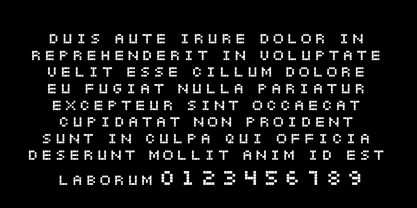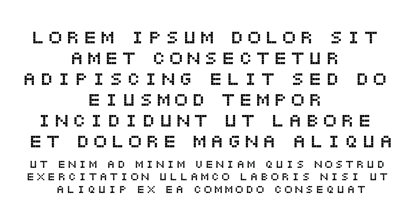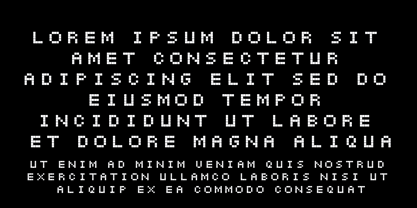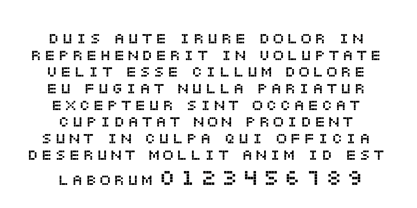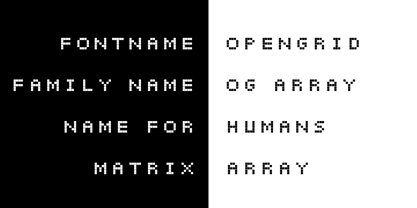
OG Array
by OpenGrid
The OG Array Font Family was designed by Kaihong Gao and published by OpenGrid. OG Array contains 1 styles. More about this family
OpenGrid Array is a bold, modular display typeface built from a strict grid of rectangular “tiles.” Each letter is constructed like a compact block pattern, so words feel like graphic symbols, icons, or badges rather than traditional text. The result is a typeface that looks engineered, digital, and architectural all at once. This font is designed for big, loud applications: logos, wordmarks, monograms, titles, posters, apparel graphics, album covers, gaming and tech branding, Web3 projects, and social media visuals. Use it where you want typography to behave like a logo system—strong, minimal, and instantly recognizable. Tight tracking creates solid, brick-like blocks of text, while wider spacing reveals the underlying grid and “array” structure. OpenGrid Array is an all-caps design with A–Z and numerals, focused on short words and strong statements rather than long reading text. It pairs well with a clean grotesk or neo-grotesk sans serif for body copy, or with a very simple geometric sans when you want the logo to take center stage. If you need a display font that feels like pixels, circuitry, and building blocks fused together, OpenGrid Array is a compact visual toolkit for modern, experimental branding.
OpenGrid is a geometric typeface built on a systematic grid structure that explores the balance between architectural precision and visual playfulness. The design uses modular components and negative space to create letterforms that are both structurally minimal and visually bold. Drawing inspiration from Bauhaus design principles and contemporary digital aesthetics, OpenGrid works particularly well for branding, editorial headlines, poster design, and digital interfaces where strong visual impact is needed. The typeface's modular nature makes it highly versatile for creating custom layouts and experimental typographic compositions. The construction relies on a strict geometric grid system, where each character is crafted from a limited set of rectangular blocks. This constraint-based approach results in a cohesive family that maintains consistency across all weights while allowing for creative applications in both print and screen media. OpenGrid is ideal for designers looking for a display typeface that combines modernist rigor with contemporary edge - perfect for tech brands, fashion labels, architectural firms, and creative studios seeking distinctive typography with a systematic foundation.